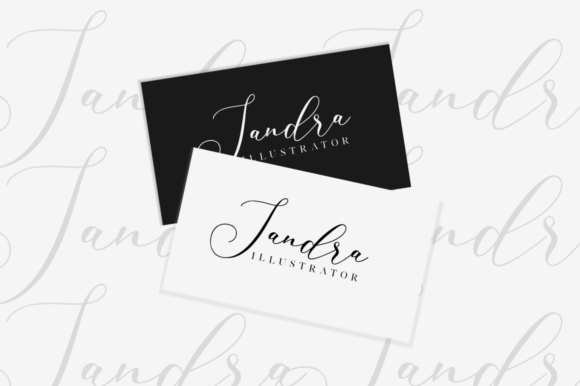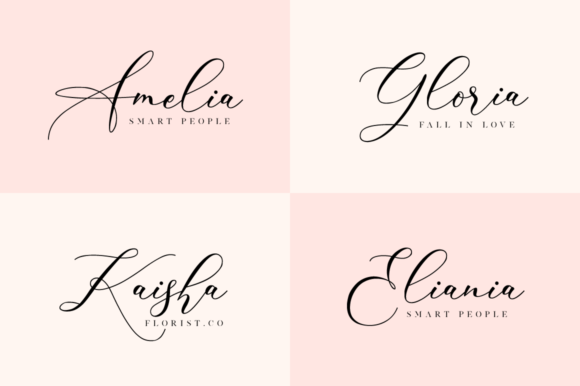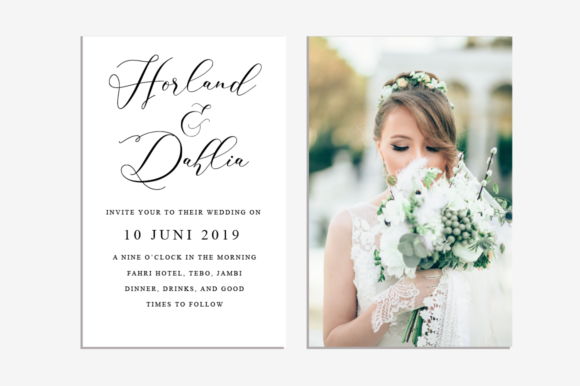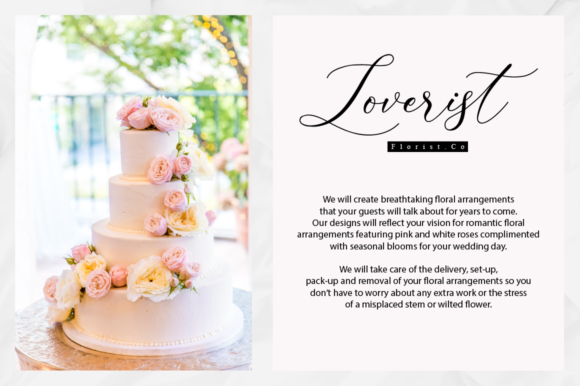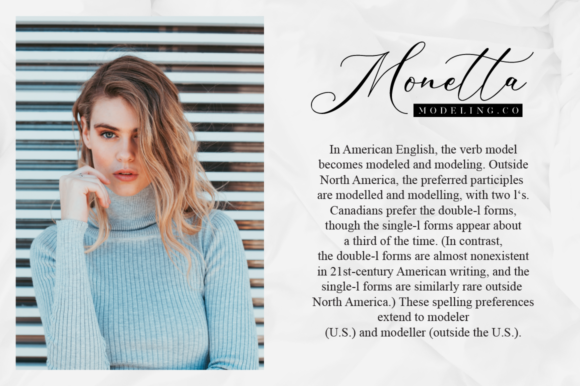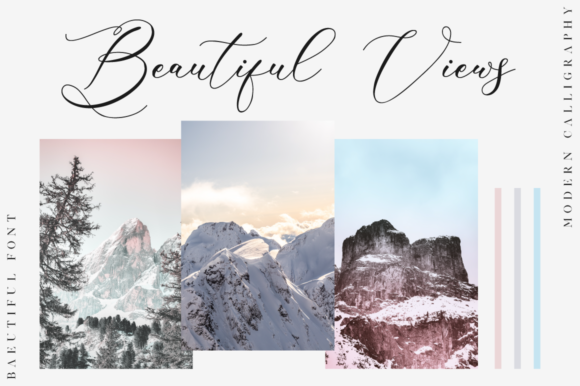
Introducing Alisson Script Font: The Epitome of Elegance and Romance
Are you a designer, crafter, or simply someone who appreciates the beauty of typography? Look no further than Alisson Script Font, a stunning and romantic script font that exudes effortless elegance. With its unique blend of sophistication and whimsy, Alisson is sure to capture your heart and inspire your creative projects.
The Charm of Alisson Script Font
Alisson Script Font is a masterfully crafted typeface that embodies the essence of romance and luxury. Its flowing lines, delicate curves, and subtle swashes come together to create a font that is both refined and captivating. Whether you’re working on a wedding invitation, a branding project, or a digital design, Alisson is the perfect choice for those seeking a touch of elegance and sophistication.
Key Features of Alisson Script Font
- Romantic and Whimsical Design: Alisson’s script design is characterized by its fluid strokes, charming ligatures, and ornate swashes, making it perfect for designs that require a touch of romance and whimsy.
- Elegant and Refined: With its classic and sophisticated look, Alisson is ideal for high-end branding, luxury packaging, and upscale digital designs.
- Effortless and Playful: Despite its elegance, Alisson has a playful and effortless feel that makes it perfect for designs that require a touch of personality and charm.
- Multilingual Support: Alisson Script Font supports multiple languages, making it a versatile choice for designers working on international projects.
What Makes Alisson Script Font Unique?
Alisson’s uniqueness lies in its perfect balance of elegance and playfulness. Its flowing lines and delicate curves create a sense of movement and fluidity, while its swashes and ligatures add a touch of sophistication and refinement. This font is sure to stand out in any design, making it a great choice for designers looking to create something truly special.
How to Use Alisson Script Font in Your Designs
Alisson Script Font is incredibly versatile and can be used in a variety of design projects, including:
- Wedding Invitations and Stationery: Add a touch of romance and elegance to your wedding designs with Alisson’s beautiful script font.
- Branding and Packaging: Use Alisson to create luxurious and high-end branding and packaging designs that exude sophistication and refinement.
- Digital Designs: Alisson is perfect for digital designs, including social media graphics, blog headers, and website titles.
- Crafting and Scrapbooking: Add a personal touch to your crafting and scrapbooking projects with Alisson’s beautiful and elegant script font.
In conclusion, Alisson Script Font is a stunning and romantic script font that is sure to capture your heart. With its effortless elegance, whimsical design, and versatile features, Alisson is the perfect choice for designers, crafters, and anyone looking to add a touch of sophistication and romance to their designs. So why wait? Fall in love with Alisson Script Font and take your designs to the next level!